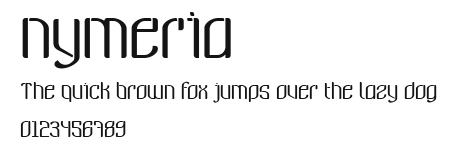
nymeria Preview
• Designer: Lijara
About nymeria.ttf
nymeria.ttf is a modern, elegant sans-serif font designed for ultimate readability and visual harmony. Perfect for branding, headlines, web design, and print materials.